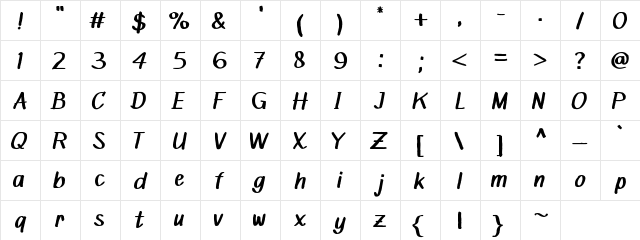
Mandalika Regular
| Foundry | Konsepta Studio |
| Designer | Hantodiningrat |
Design Context for Mandalika Typeface
Mandalika is a composed and adaptable typeface that performs quietly and consistently across a wide range of design contexts.